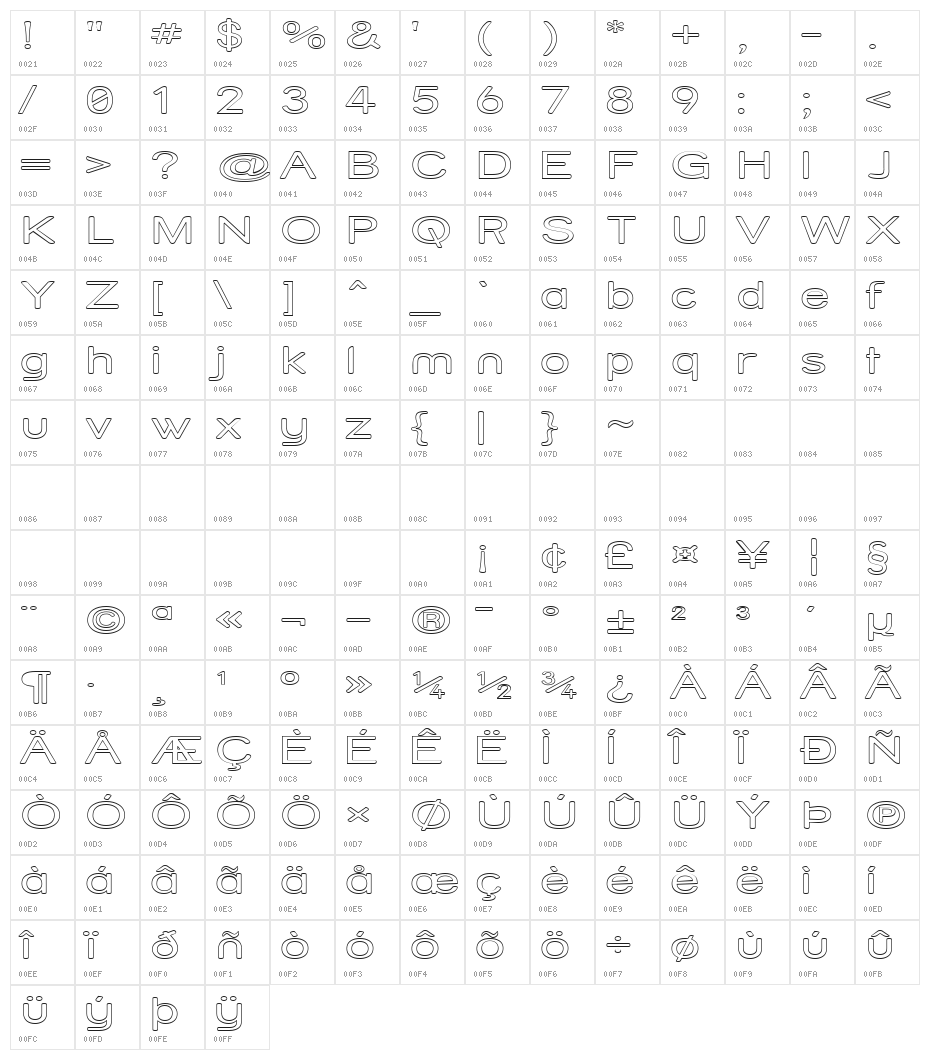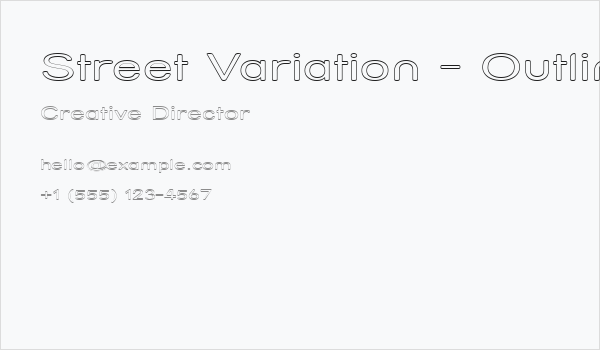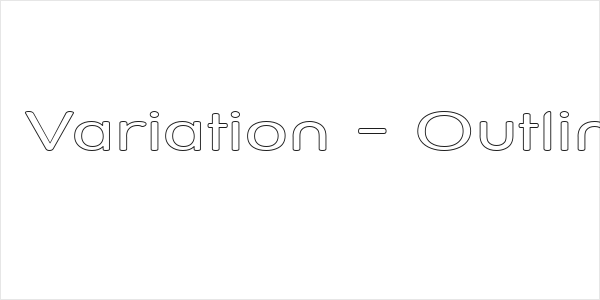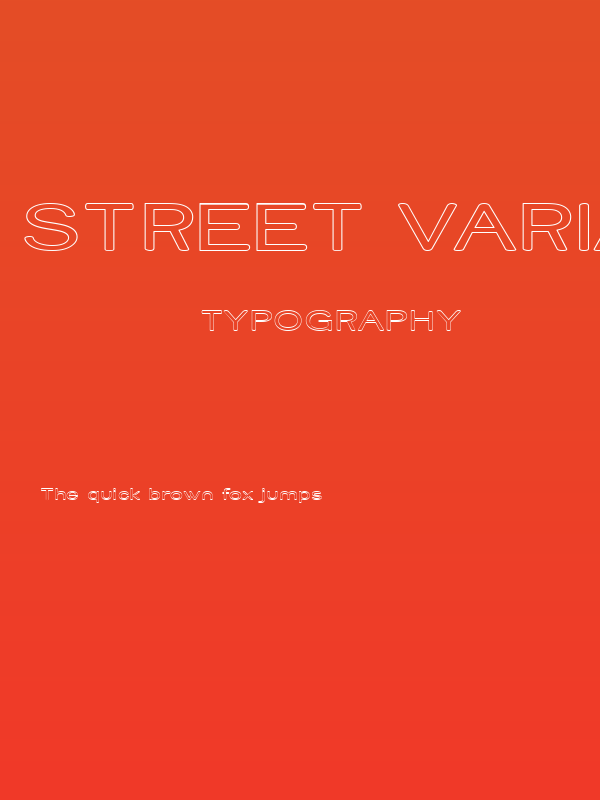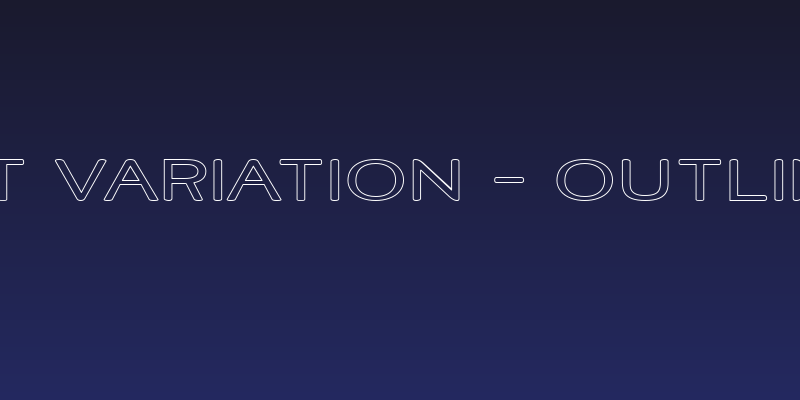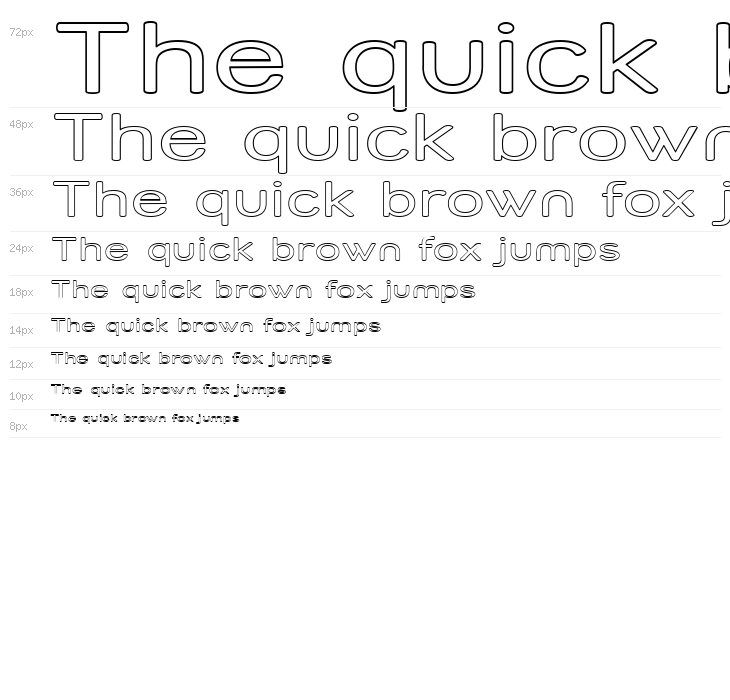
Street Variation - Outline Exp Font
Street Variation - Outline Exp Description
This font features a clean and modern outline style, characterized by its geometric and uniform letterforms. Each character is defined by a single continuous line, creating a hollow effect that emphasizes the shape and structure of the letters. The uppercase and lowercase letters maintain a consistent height and width, providing a balanced and harmonious appearance. The numerals and special characters follow the same design principles, ensuring a cohesive look across all elements. The font's simplicity and clarity make it suitable for a variety of design applications, where a contemporary and minimalist aesthetic is desired.
| Proposed Projects | Ideal for branding, signage, posters, and digital media where a clean and modern look is essential. |